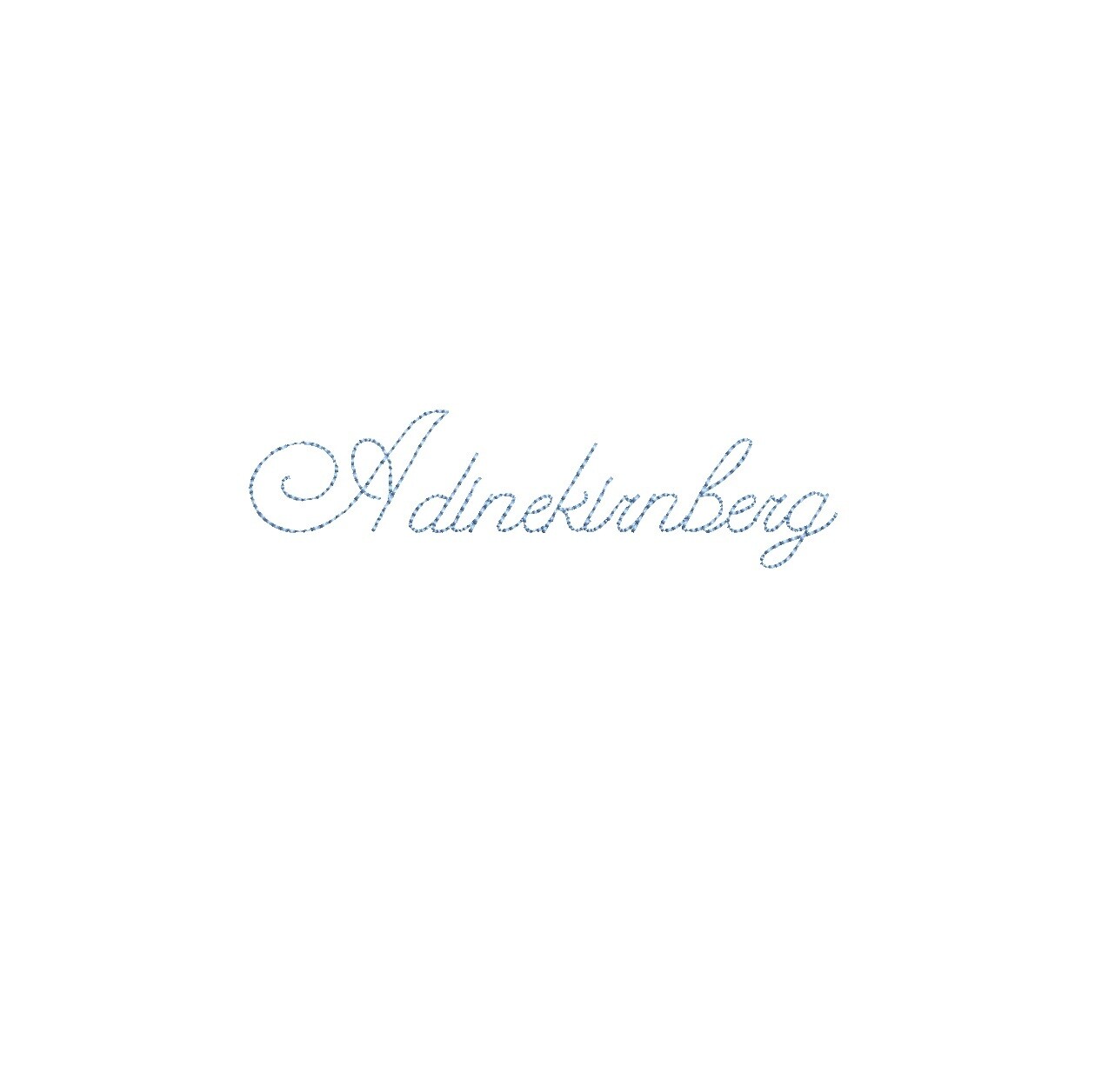
Introducing the captivating Adine Kirnberg Bean Stitch ESA font - your ultimate digitizing solution compatible with Wilcom Studio e4.5.6 and Hatch 3 versions and up. Embrace the beauty of this font, inspired by calligraphy and embellished with bean stitches, perfect for various embroidery projects. Its artistic flair adds a touch of elegance to apparel, accessories, and home decor. With seamless curves and impeccable lines, the Adine Kirnberg ESA font guarantees flawless embroidery results. Impress clients and express your creativity effortlessly with this user-friendly font, seamlessly integrating with your preferred software. Don't miss the chance to create stunning embroidery pieces. Get it now!